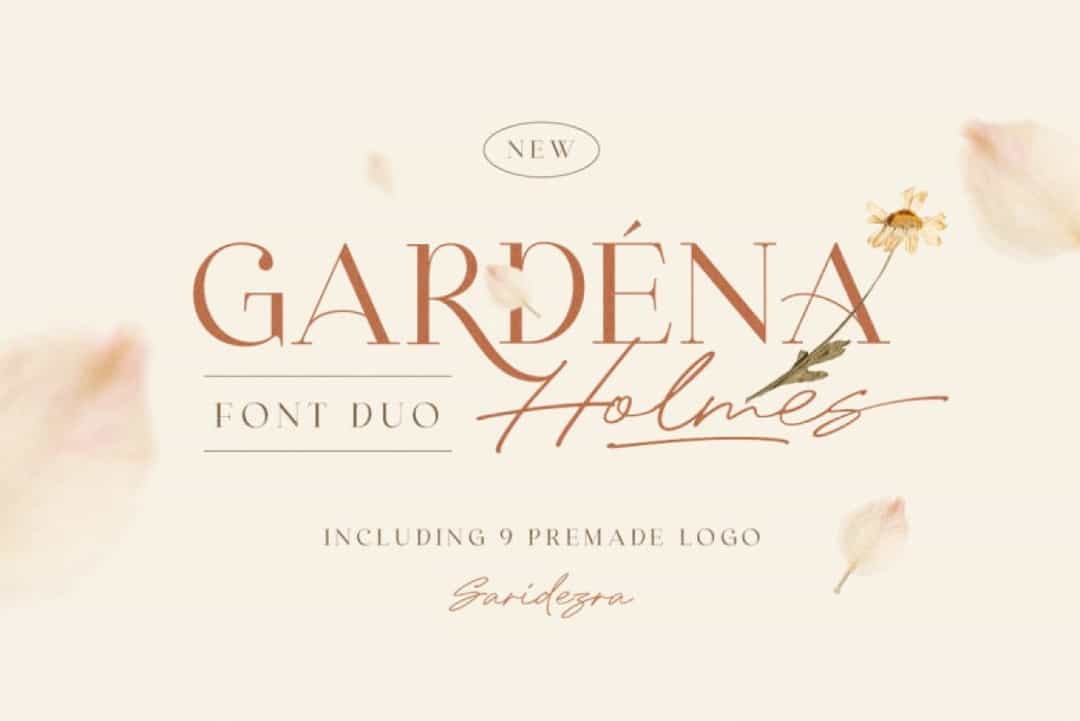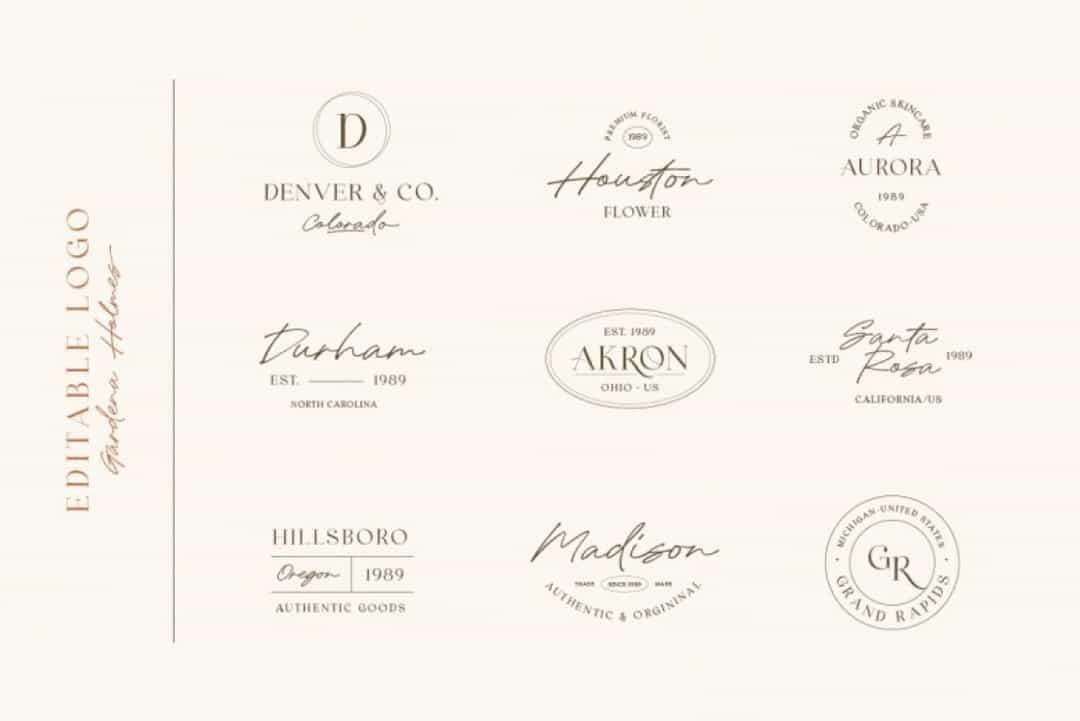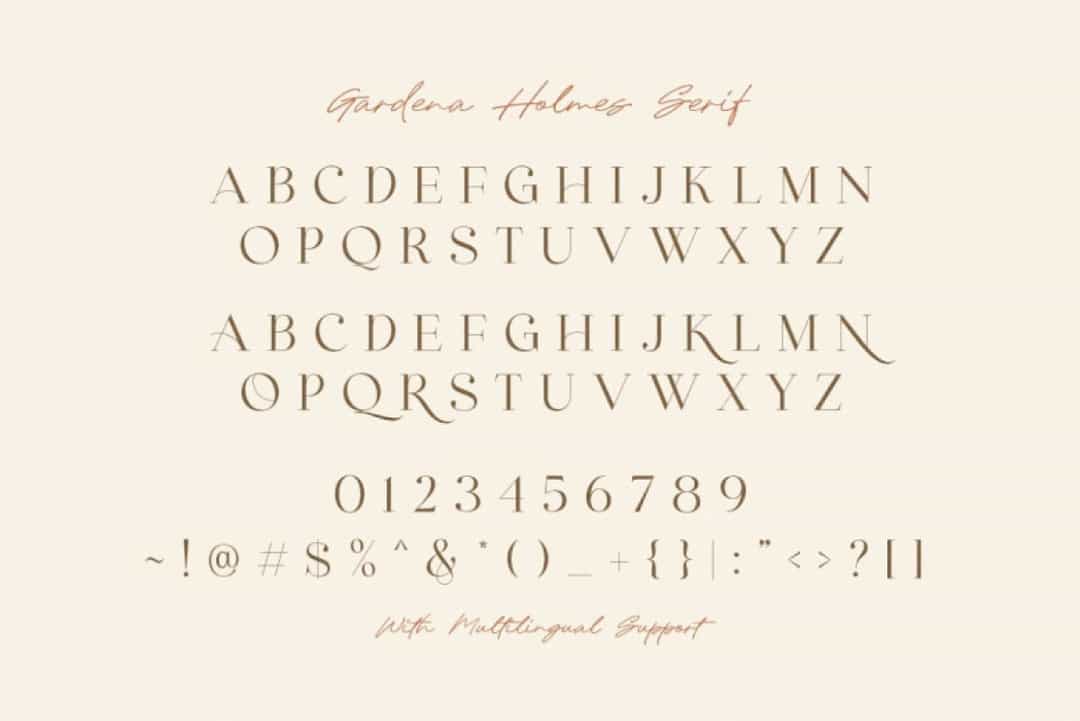
Gardena Holmes Font Duo
Gardena Holmes Font Duo is an exquisite combination of classic serifs and signature script. Featuring two fonts: elegant modern serif and free-hand writing script; multilingual support is also provided in addition to end swashes and other ligatures.